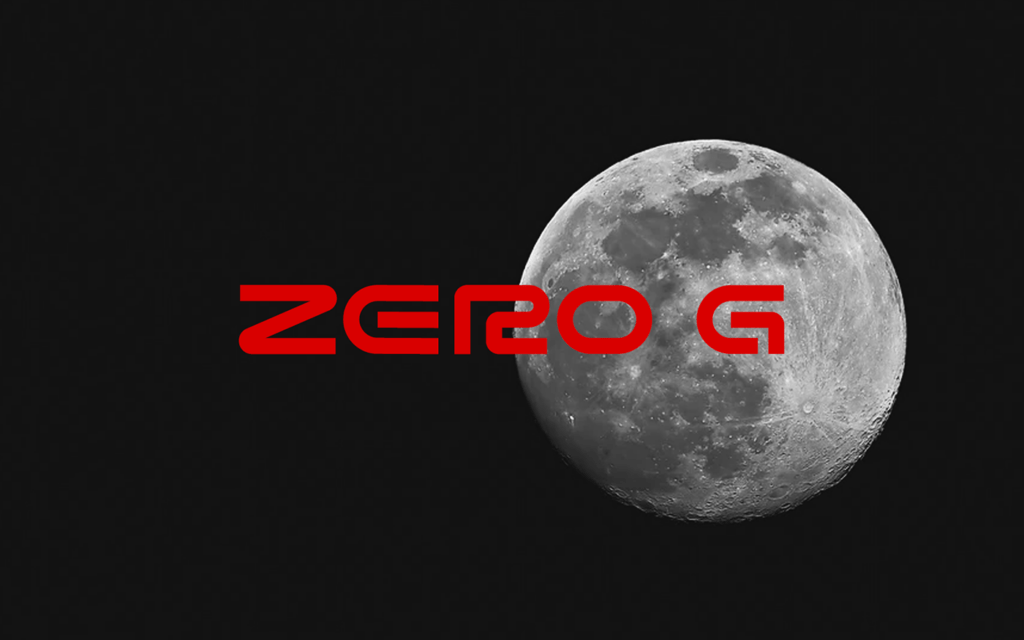
Zero G Font
Zero G Font is modern Display font. Made for any professional project branding. Made from font designer Aromal Ashok. it will make your design project more beautiful. It is the best for branding, printing, wedding and quotes.
Every letter has a unique and beautiful touch. The font is suitable for any design like branding, fashion, print template, quotes, wedding and etc.
Zero G Display Font